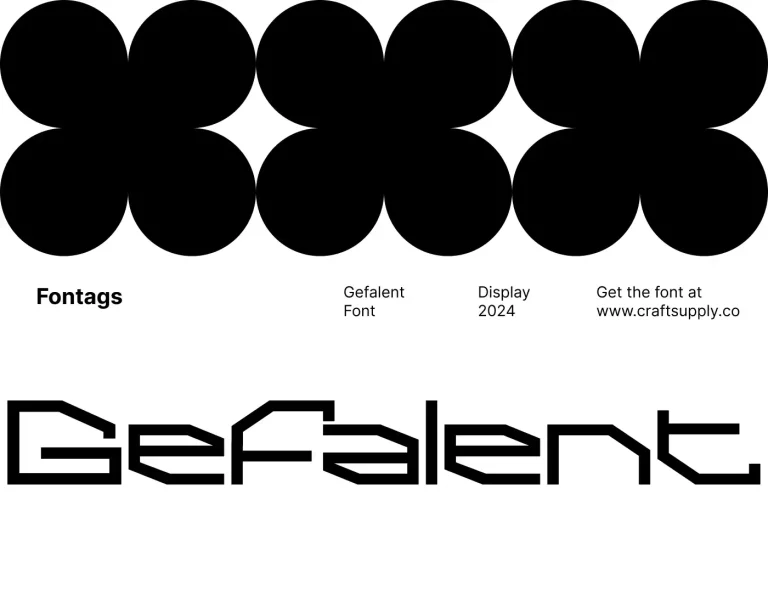
Gefalent
Gefalent presents a sleek and minimalist geometric design, characterized by monoline strokes. Its futuristic appearance draws inspiration from sci-fi and space exploration, evoking a sense of innovation and modernity. With its monoline structure, This font exudes an air of simplicity…
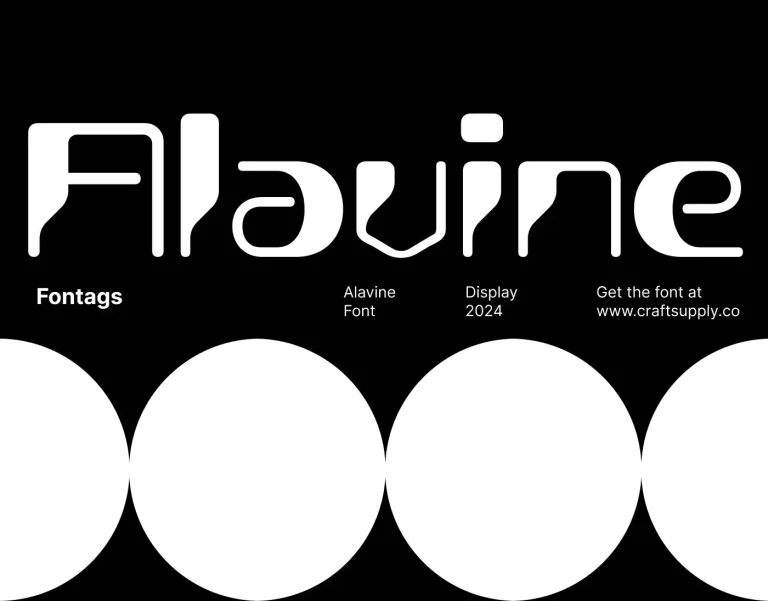
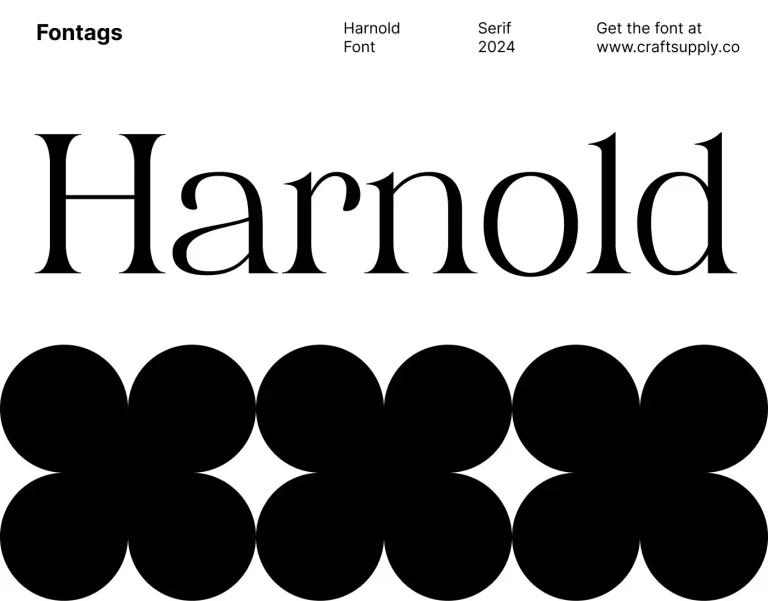Alavine
Alavine draws inspiration from the futuristic aesthetics of Y2K-era robots, featuring sleek lines and geometric shapes reminiscent of advanced technology. With its sleek and modern design, This font exudes a sense of innovation and sophistication, making it perfect for contemporary display purposes.…
Harnold
Harnold, with its high-contrast serif design, emanates an aura of timeless sophistication and refined elegance in every aspect of its form. The pronounced contrast between its thick and thin strokes not only captivates the eye but also adds depth and dimension to…
Covalie
Covalie’s graceful serif typeface draws inspiration from the delicate beauty of flowers. Its moderate contrast and flowing letterforms capture the essence of floral charm. With its subtle curves and refined details, This font exudes an enchanting aesthetic that captivates the eye. Each…
Gladwyn
Gladwyn exudes a vibrant and playful vibe with its funky design, making it perfect for eye-catching displays. Its bold strokes and lively curves captivate attention, ensuring that your message stands out in any setting. The font boasts distinctive funky nuances that…
Belony
Belony features a bold sans serif style, drawing inspiration from playful balloons. Its groovy, rounded shapes evoke a sense of whimsy and cheerfulness, perfect for children’s designs. With its bold and vibrant appearance, This font commands attention wherever it’s used. The dynamic…
Guavine
Guavine embodies classic serif nuances, evoking a sense of timeless elegance and sophistication in every character. Its serif design exudes tradition and refinement. With moderate contrast, This font strikes a perfect balance between legibility and stylistic flair. The contrast adds depth and…
Angeris
Angeris font draws inspiration from the iconic Art Nouveau movement, infusing it with a retro charm that evokes nostalgia. Its design reflects the intricate motifs and organic forms synonymous with the Art Nouveau era. With its serif retro design, This font exudes…
Alfena
Alfena boasts a cute serif tweak that adds a delightful charm to its characters. This subtle modification infuses the font with a playful and endearing quality. With a moderate contrast, This font strikes the perfect balance between readability and style. Its well-defined…
Wadeline
Wadeline boasts a slim sans serif design with narrow white space, creating a sleek and modern aesthetic. Its condensed form allows for efficient use of space while maintaining readability. With its bold weight, This font demands attention and makes a powerful statement.…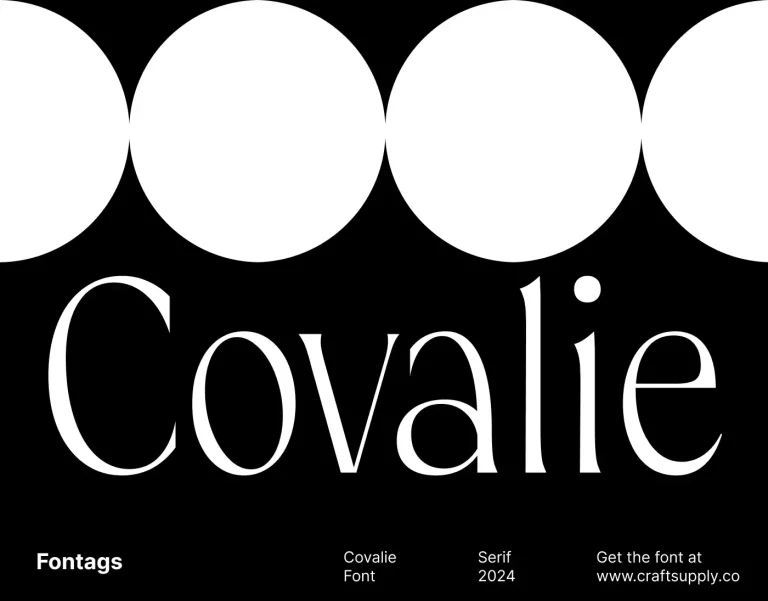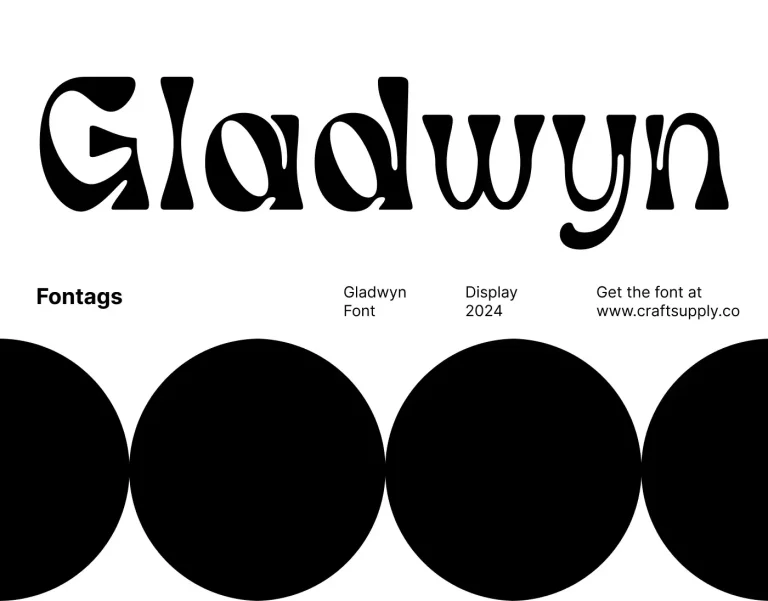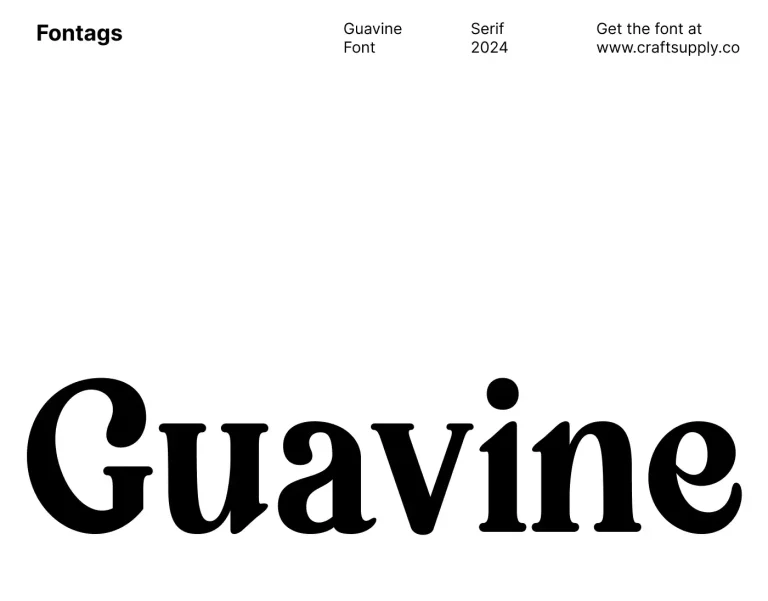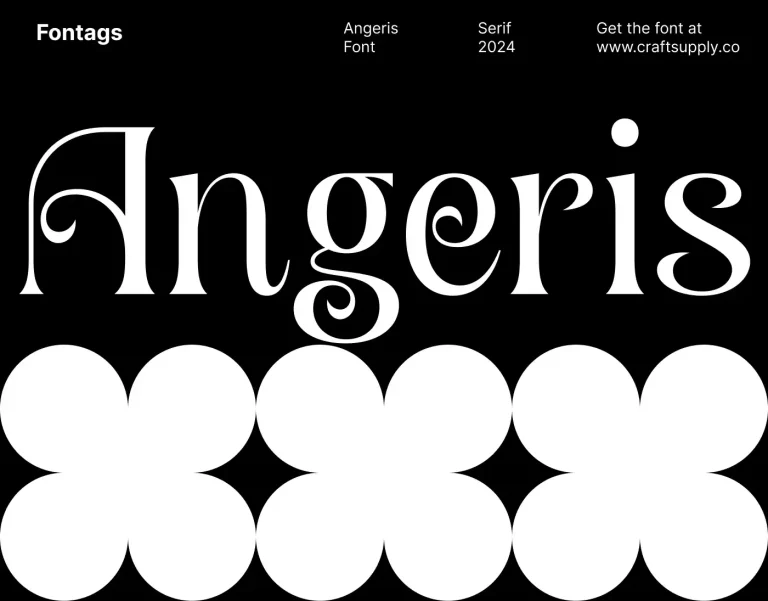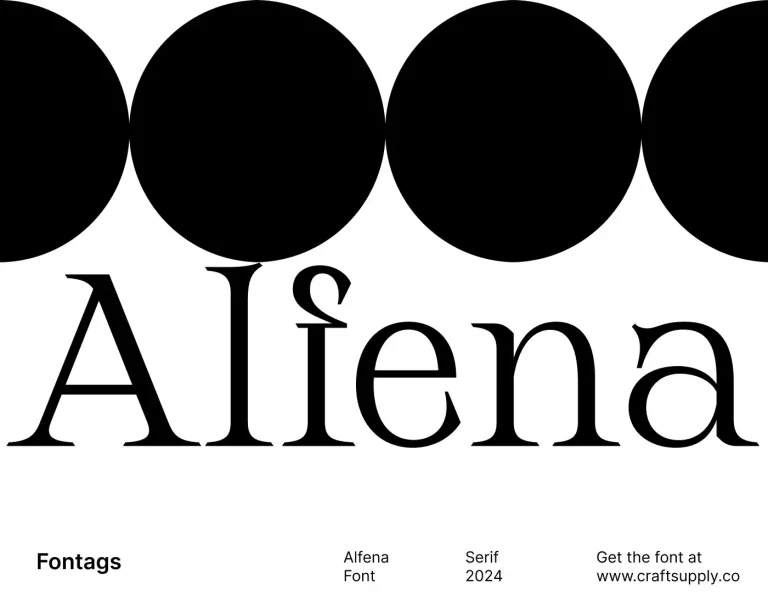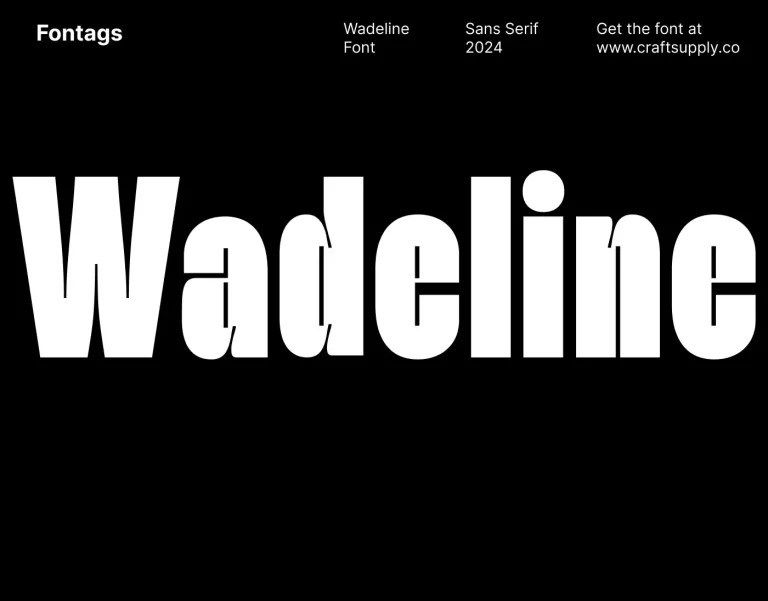